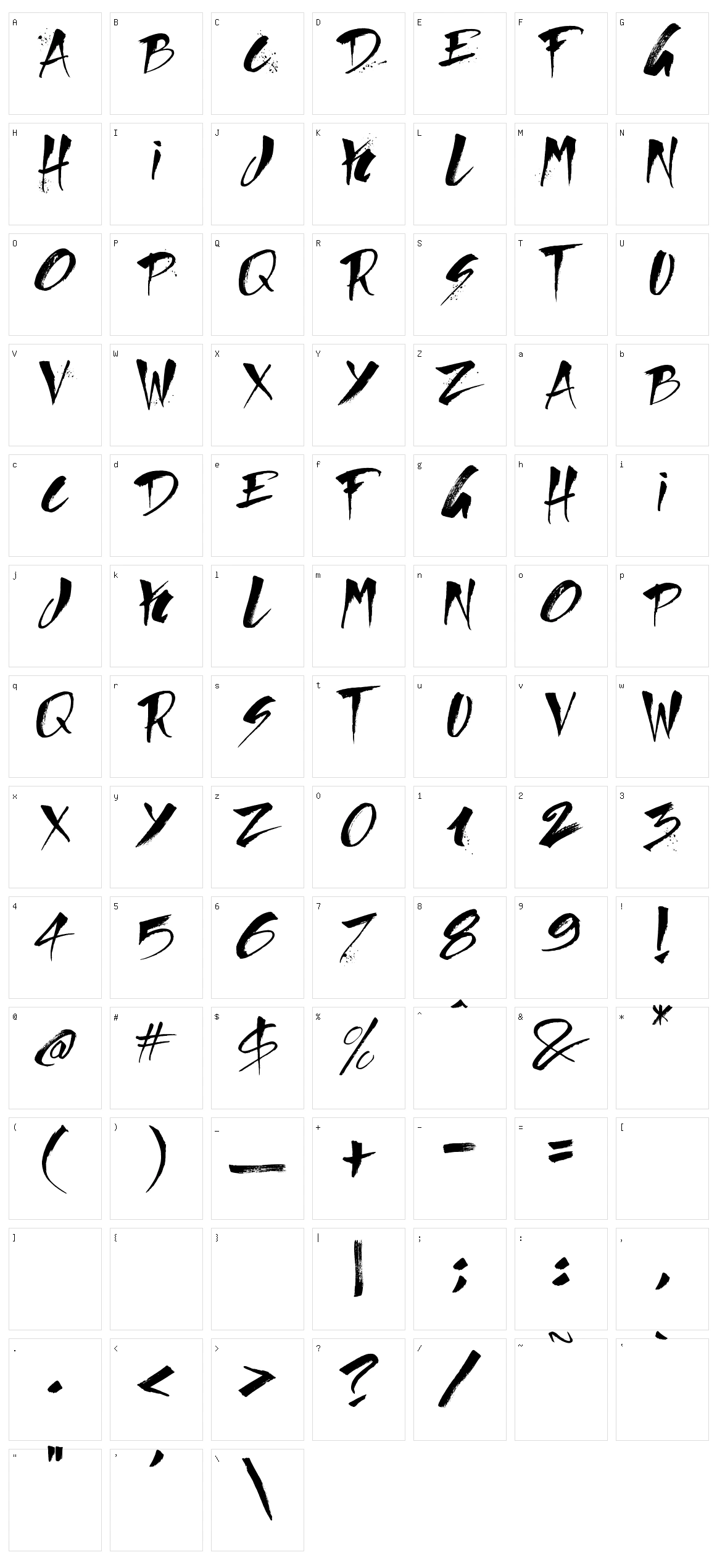
The free font Direct du Gauche is carefully designed by imagex, showcasing a thoughtful balance of creativity and usability and falls under the Script font style. When you download the ZIP file, it contains only 127.98 KB of font files, making it lightweight and quick to download. Please review the license details below to understand permitted usage and distribution rights. If license information is not available, we recommend using this font for personal projects only or contacting the author directly for commercial usage permissions.